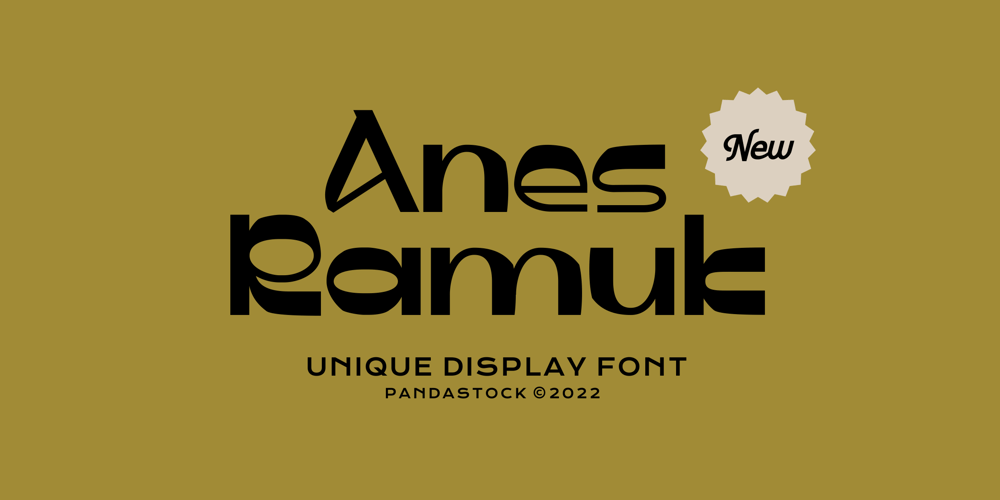
Anes Ramuk
Anes Ramuk font
Anes Ramuk Font Family was designed by Aulia Savira Putri and published by Imoodev. Anes Ramuk contains 1 styles and family package options. Anes Ramuk is modern typography fonts with visual elegance, smooth curves, and beautiful ligatures clear, making your work look true and attractive.A very versatile font that works in both large and small sizes. This font is suitable for a wide variety of projects such as invitations, logos, branding, magazine, photography, card, product packaging, mugs, quotes, poster, labels, signatures, and more.A font that is perfect for all business sectors including personal projects, studio, corporate, creative agency, industrial, company, etc.